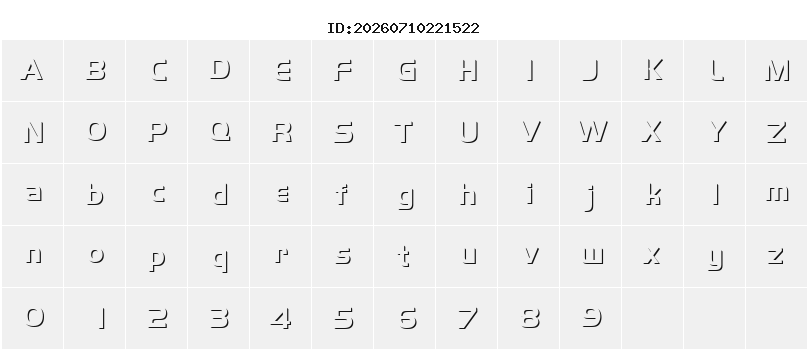
Handel Becker Only Shadow Bold Preview
• Font Name: Handel Becker Only Shadow Bold
About Handel Becker Only Shadow Bold.ttf
Handel Becker Only Shadow Bold.ttf is a modern, elegant sans-serif font designed for ultimate readability and visual harmony. Perfect for branding, headlines, web design, and print materials.